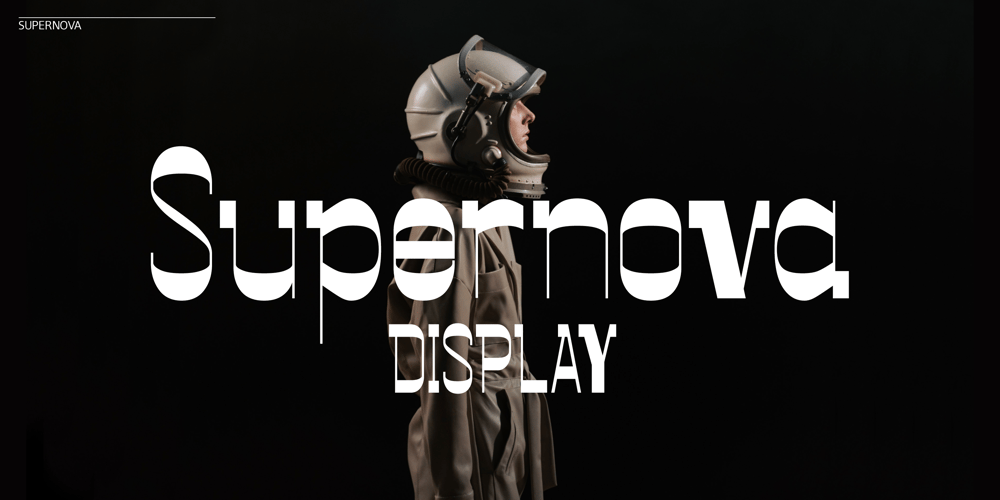
Sf Supernova Font Family was designed by Paul Henry Robb and published by S6 Foundry. Sf Supernova contains 3 styles and family package options. Supernova is a stylistic display font developed within a set grid. Perfectly suited for headlines, large-format prints, brand identities, social media, advertising, editorial design, posters, magazines, logos, headings, digital and more.Multi-language support.